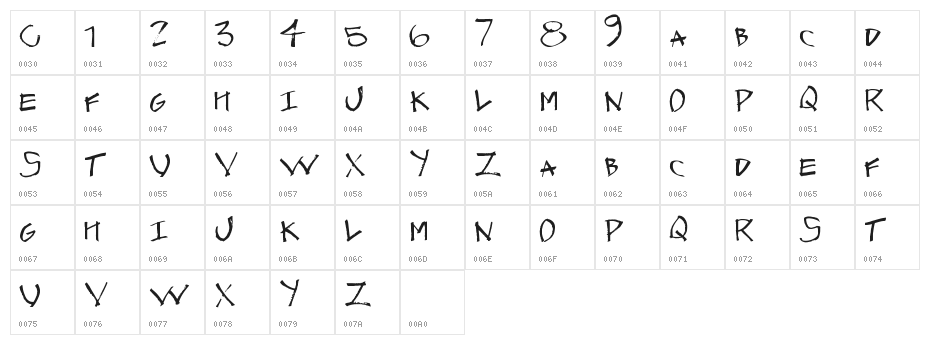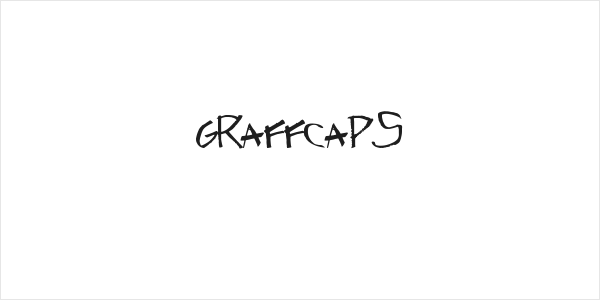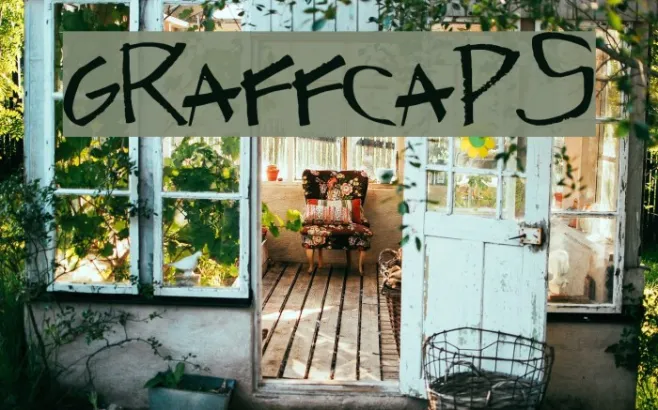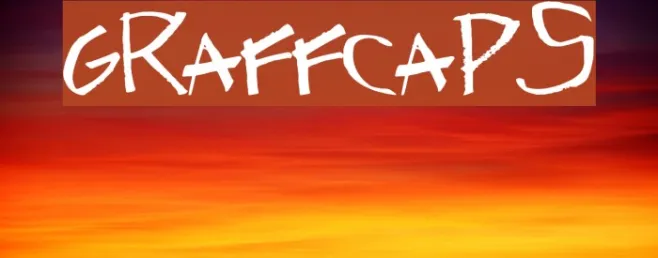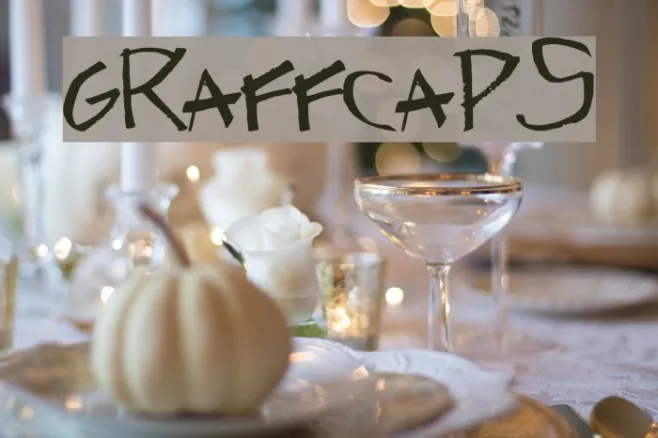
GraffCaps Font
GraffCaps Description
This font exudes a bold, urban graffiti style with its rough, brush-like strokes and dynamic, energetic appearance. The uppercase and lowercase letters share a consistent aesthetic, characterized by jagged edges and a hand-drawn feel. The numbers and special characters maintain this edgy style, making the font ideal for projects that require a rebellious or street-art vibe. The overall design is both artistic and expressive, capturing the essence of graffiti culture.
GRAFFCAPS UPPERCASE
GRAFFCAPS LOWERCASE
GRAFFCAPS OTHER CHARS
| Overall Style | Urban, Graffiti, Artistic |
| Use Case | Headlines, Posters, Branding |
| Proposed Projects | Ideal for street art designs, urban-themed posters, edgy branding, and music album covers. |